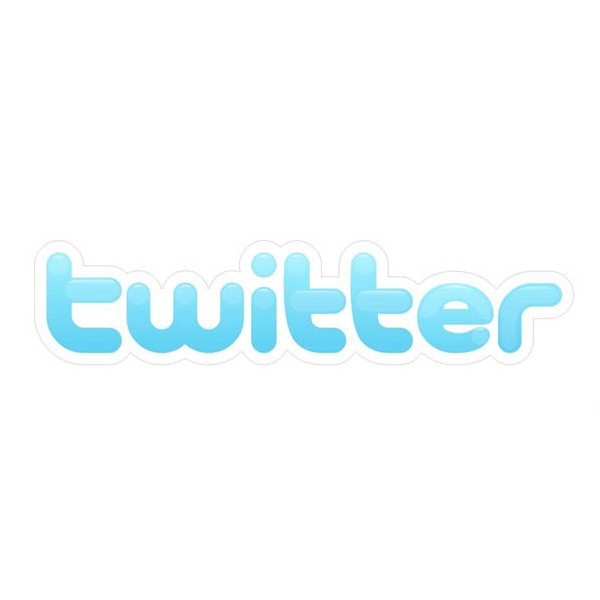
Twitter Logo Font
Instead only the bird is used.
Twitter logo font. Home companies organizations twitter. You can download them for free here. The twitter logo was designed using the font pico alphabet by maniackers design with some modifications. You can get the font free here.
Maybe its because it is a cartoon gracing the full alphabet showcase. Its created by maniackers design and its downloadable right here. The font used in the twitter logo is actually pico alphabet. This font is tagged.
The twitter logo was designed by simon oxley in 2009. The logo twitter has been using pico alphabet font. Click here to download. Click here to download twitter font.
Pico black by maniackers design. The font used on the website is gotham. A font based on the twitter logo. The closest font for twitter is pico alphabet it looks like there were some modifications to the font for the logos purpose.
Twitter logo font is a website dedicated to their old logo and font. What is the font used for twitter for its logo. What is the twitter logo font. Pico alphabet go to the bottom of the page and choose either windows or mac font type.
Twitter introduced a new logo in 2012 featuring the twitter bird. When creating a tweet always use helvetica neue bold for the display name the tweet itself and timestamp and regular for the username to match the twitter product. Pico alphabet is available in two styles pico black and pico white.